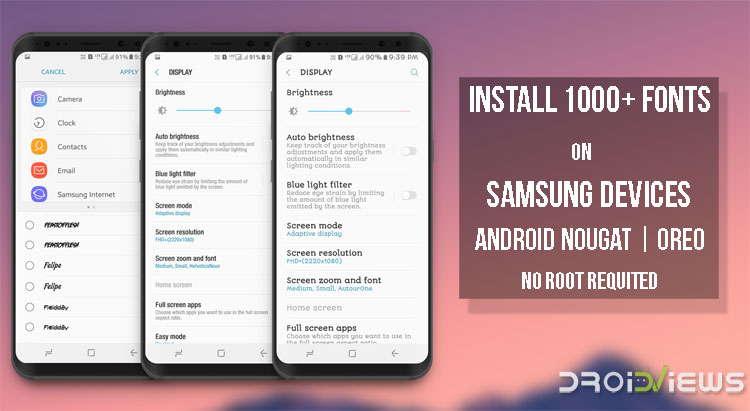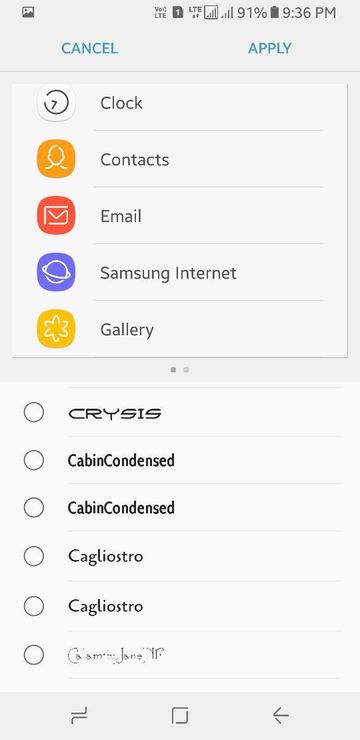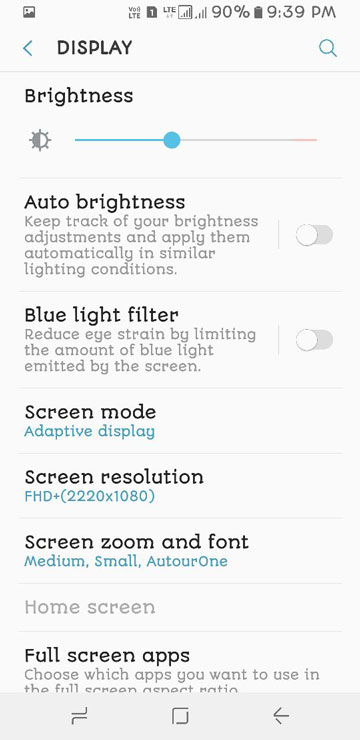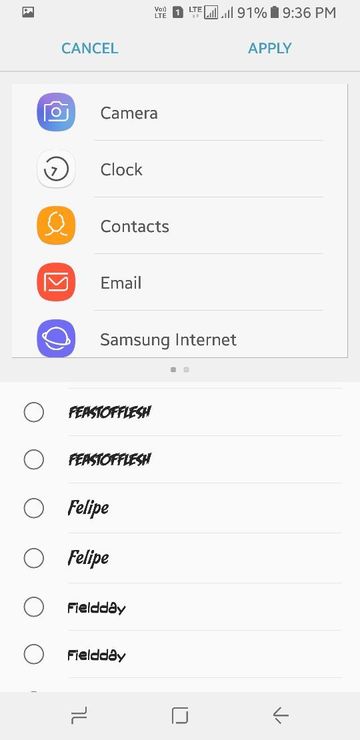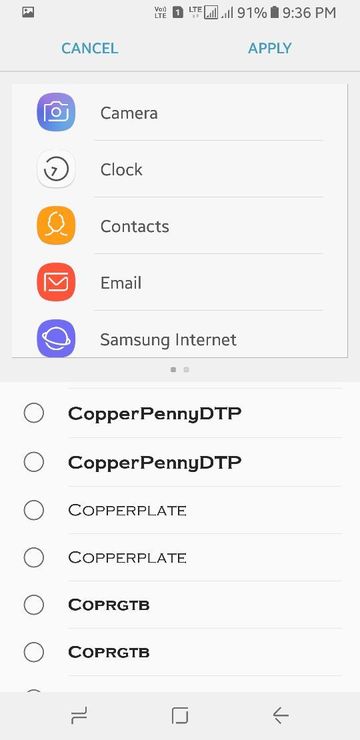
Install 1000+ Fonts on Samsung Devices (Nougat/Oreo)
If you want to enjoy custom fonts on Samsung Galaxy devices, we got a Samsung fonts APK package for you. Just install the app to enjoy more than 1000 fonts for Samsung devices without root. The Flipfonts APK supports all Samsung devices running Android Nougat and Oreo. Download Samsung fonts APK and install it without root.
Regardless of which OEM you bought your Android from, in almost all cases the default font is good enough. There was a time when some OEMs used funky looking fonts to stand out but not anymore. The default Roboto font on Android looks great, so does the Samsung One font on Samsung devices. It has been a while since I’ve even thought of changing the font on my Android and I mostly prefer the stock font now. But you don’t have to especially if you happen to have a Samsung, LG or HTC device. These OEMs allow users to change the device font quite easily, something that’s still missing from stock Android. You can now install 1000+ Samsung fonts on Samsung devices running Android Nougat or Oreo firmware at once without root access.
This has been made possible by the Wings Samsung Fonts project for Samsung devices, developed and maintained by teamwings. It’s a small group of dedicated developers. The fonts can be installed much easier thanks to substratum support present on Samsung devices running Android Nougat and Android Oreo. It doesn’t even require root. But the substratum support does come at a cost and it’s understandable if you haven’t bought it.
Luckily, these Wings fonts can also be installed and work just as fine even if you don’t have Substratum on your device. Other than that the only requirement is SamsungSans which can be downloaded from the Galaxy Apps store. Regardless if you have Substratum or not, SamusngSans is a requirement.
Bugs
There is currently a known bug that will possibly be fixed in a future update. You may see the same fonts listed twice. One of these will actually not work and tell you that the font is not supported. The other one will work.
Screenshots from Galaxy S8 Running Android Nougat Firmware